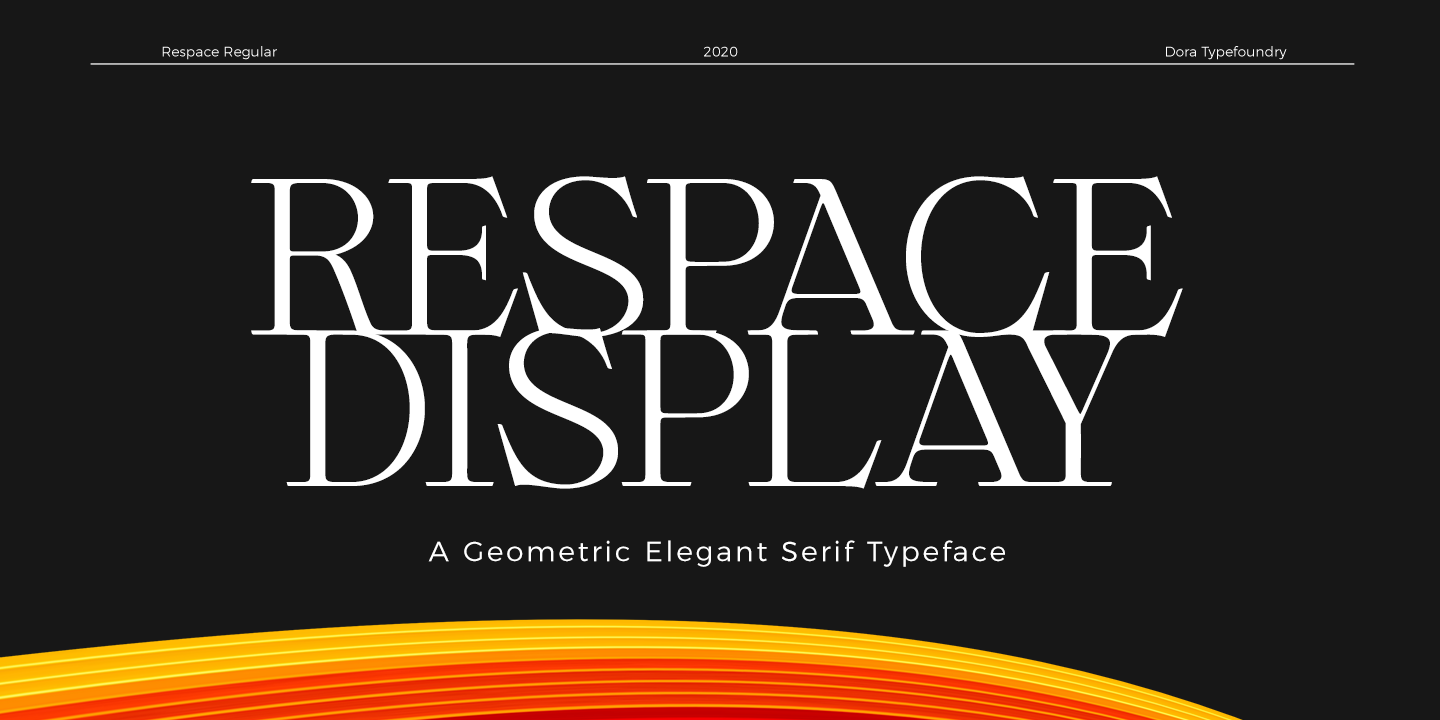
Respace Font excels in modern applications including tech startups, innovative design agencies, space technology companies, architectural firms, contemporary art galleries, digital transformation consultancies, and forward-thinking brands that require reimagined typography with spatial intelligence and innovative character that redefines visual communication boundaries.
What makes Respace Font exciting is its revolutionary approach to letterform spacing and spatial relationships that creates entirely new visual experiences. This innovative typeface features intelligently redesigned proportions and breathing room that transforms how text interacts with design space, making it perfect for brands seeking to communicate innovation, transformation, and progressive thinking through typography.
The Respace Font family includes ultra-light, light, regular, medium, and bold weights, complemented by variable spacing options and contextual alternates for enhanced spatial flexibility. Each style maintains the font's characteristic spatial innovation while providing designers with comprehensive tools for creating dynamic layouts and transformative brand communications that push creative boundaries.
Design professionals consistently choose Respace Font Free Download for projects requiring spatial innovation and contemporary sophistication. This versatile typeface seamlessly communicates forward-thinking approaches while maintaining excellent readability, ensuring brand messages resonate with audiences seeking innovative solutions and transformative experiences that challenge conventional design paradigms.
The font's spatial intelligence and innovative character make it particularly suitable for technology and design sectors. Respace Font delivers exceptional contemporary impact while ensuring optimal visual comfort, offering designers a revolutionary solution for creating memorable brand identities that communicate innovation, transformation, and spatial excellence across modern and progressive marketing applications.